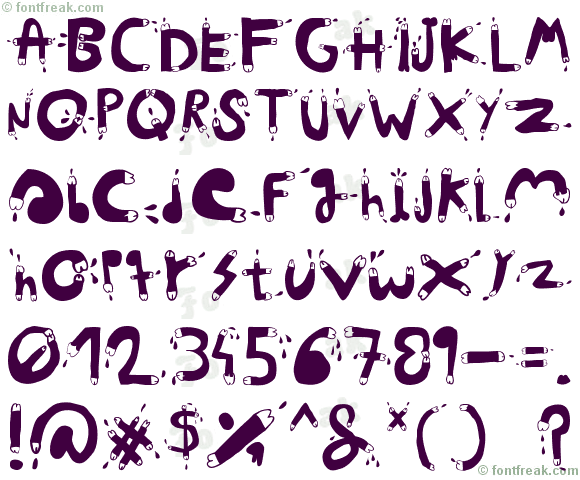
woodcutter POLLITA ALEGRE
The woodcutter POLLITA ALEGRE font, created by woodcutter Manero, is a unique display typeface that captures a playful and whimsical essence. This decorative font features bold, rounded letterforms with a distinctive, handmade feel. The irregular stroke weights and charming imperfections add to its personality, making it both eye-catching and approachable. The spacing is generous, allowing for clarity while maintaining a fun and lively aesthetic.
Ideal for a variety of creative projects, woodcutter POLLITA ALEGRE shines in use cases such as children’s book covers, party invitations, and playful branding for cafes or boutiques. Its cheerful design can also enhance restaurant menus, making dining experiences feel more inviting and friendly. Graphic designers and small business owners will find this font particularly appealing for projects aimed at engaging a younger audience or conveying a sense of joy and creativity.
What sets woodcutter POLLITA ALEGRE apart is its ability to evoke a sense of nostalgia and playfulness while remaining versatile across different mediums. Its unique character and charm make it a standout choice for anyone looking to add a touch of whimsy to their projects. Whether used in print or digital formats, this font promises to leave a lasting impression.